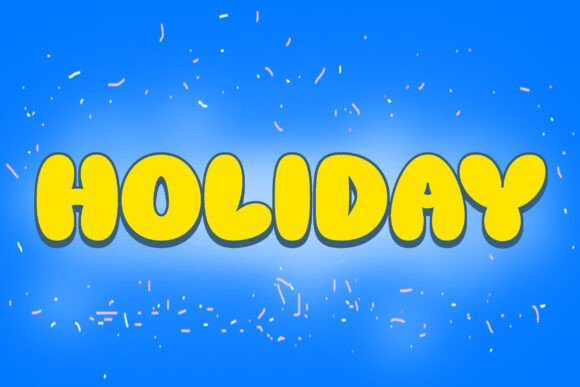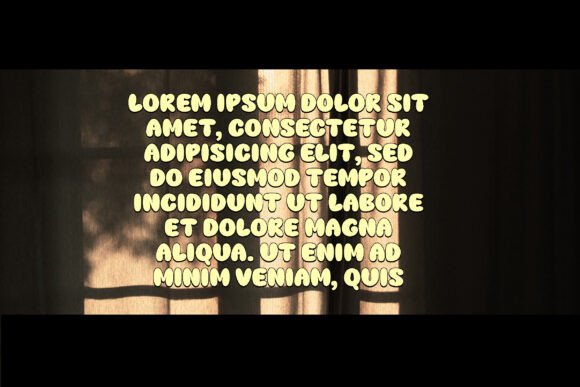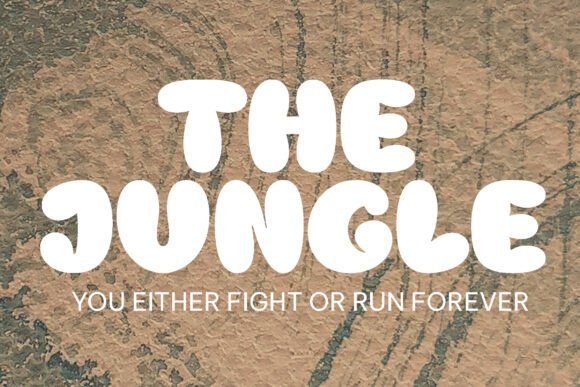
Introduction to Hemon Font
Have you ever found yourself stuck in a creative rut, searching for the perfect design element to bring your project to life? The moment of inspiration can strike at any time, but sometimes it’s hard to find the right tools to match your vision. That’s where the Hemon Font comes in – a delightful display font that adds a playful touch to any design.
With its bubble-style design and two unique variations (Regular and Extrude), the Hemon Font is an excellent resource for designers looking to add some whimsy to their work. Whether you’re working on a creative project that requires a fun, eye-catching font or simply want to spice up your design with a high-quality display font, the Hemon Font is sure to deliver.
Key Features of Hemon Font
- High-quality design resource for creative projects, ideal for logos, branding, and digital artwork.
- Designed with a modern aesthetic, the Hemon Font is perfect for designers seeking a contemporary look for their creative project.
- Includes a comprehensive character set, ensuring that designers have access to a wide range of symbols, letters, and punctuation marks.
Honest Review: Hemon Font
As a designer, I’m always on the lookout for high-quality design resources to elevate my creative projects. Recently, I stumbled upon the Hemon Font, and I’m excited to share my honest review.
- The Hemon Font offers a sleek and modern aesthetic, perfect for contemporary design projects.
- The font is highly versatile, suitable for a wide range of applications, from logos to body text.
- The font selection is relatively limited, with only a few styles to choose from.
- The font may not be suitable for more traditional or classic design projects.
Hemon Font: A High-Quality Design Resource
Introduction to Hemon Font
Tips for Getting the Most Out of Hemon Font
For the best results, use Hemon Font in combination with other high-quality design elements. Experiment with different font sizes, colors, and styles to create unique and eye-catching designs.
Common Use Cases for Hemon Font
Hemon Font is perfect for any creative project, including logos, business cards, brochures, and social media graphics. Its high quality and transparent background make it an ideal choice for designers looking for a versatile and professional font.
Alternatives to Hemon Font
1. Hind Font
Hind Font is a sans-serif typeface designed for high-quality creative projects, making it an ideal design resource for those seeking a clean and modern look. It features a transparent background, allowing for seamless integration with various design elements. When to use: Hind Font is suitable for digital design projects, such as mobile apps, websites, and social media platforms.
Comparison to Hemon Font: Hind Font offers a more minimalist and geometric appearance, whereas Hemon Font has a more rounded and friendly feel. Hind Font is also more versatile, with a wider range of font weights and styles available.
2. Montserrat Font
Montserrat Font is a popular sans-serif typeface known for its high-quality design and transparent background, making it an excellent choice for creative projects. It is highly legible and suitable for a wide range of applications, from print to digital media. When to use: Montserrat Font is ideal for design projects that require a strong, urban feel, such as brochures, posters, and urban signage.
Q: Is the Hemon Font a high-quality font suitable for professional use?
Yes, the Hemon Font is a high-quality font designed to meet the needs of professional designers. It features a clean and modern design, making it suitable for a variety of creative projects, from corporate branding to advertising and editorial design.